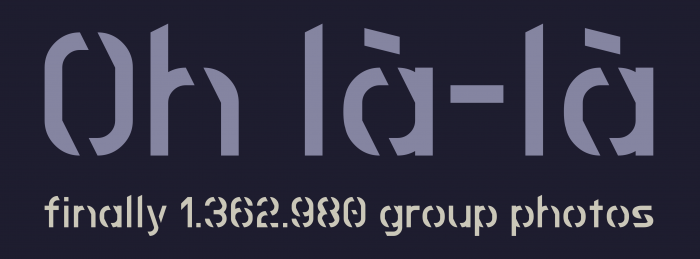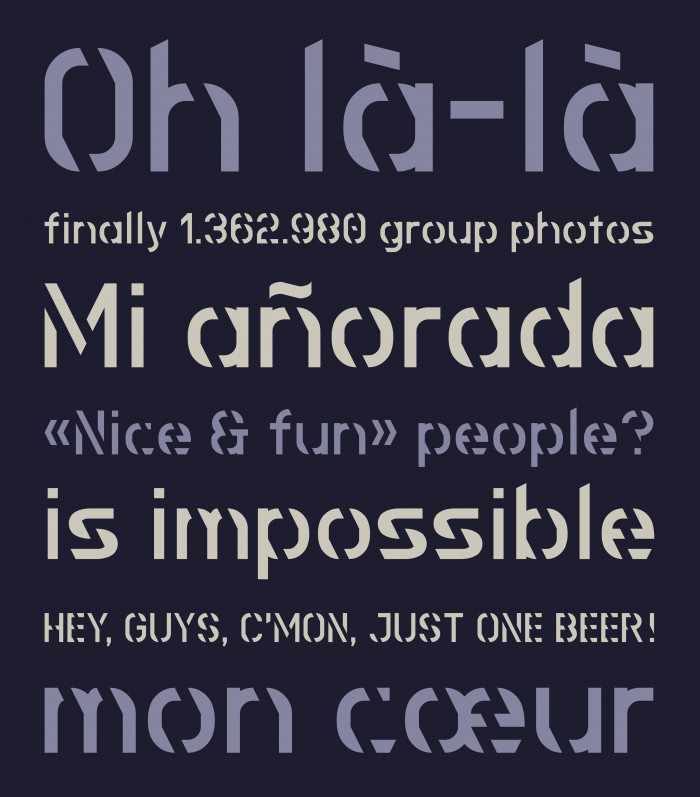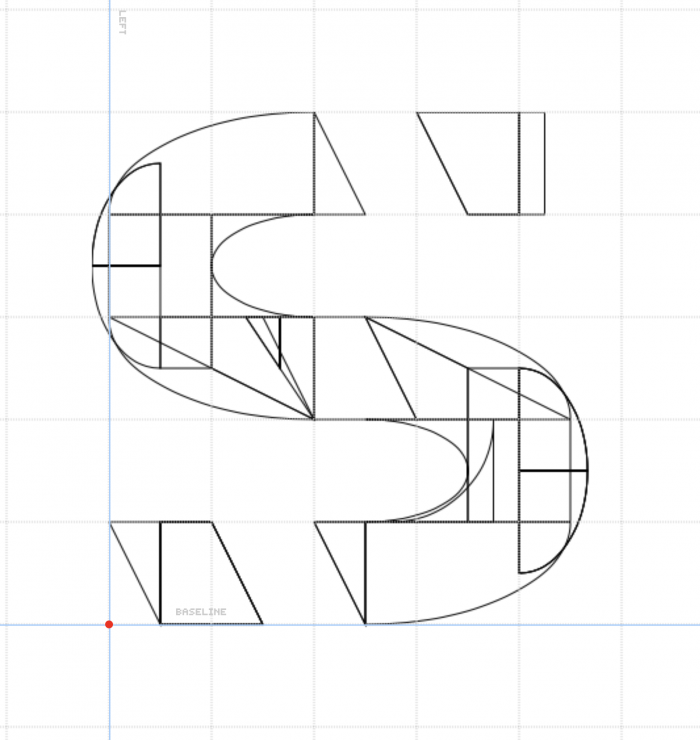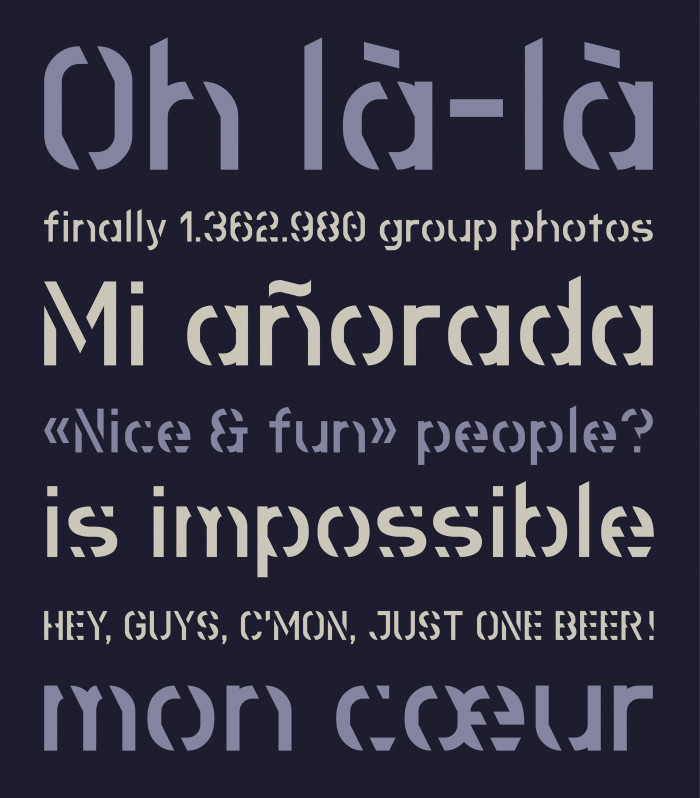
PS: The final "s" belongs to the great @four, as you can see. Thanks, compañero!
Trying an unusual oblique way to spacing the parts in a stencil font. Looking at the glyphs, I'm not entirely satisfied with the final aspect of my "s", any suggestion to improve it (or also for other letters) are welcome. Thanks in advance. ❤️
Another lovely design, the slanted stencil style is a unique twist
Regarding the "s", perhaps something slightly similar to the "z" with some softer edges?
The slanted bridges on this stencil font are very effective. How about something like this for s?
Dear @four: WOW, just perfect! Changed! Thanks a million, compañero. I've kept my old "s" in the "©" glyph. Sorry, I can't change samples right now, but I promise to do it later.